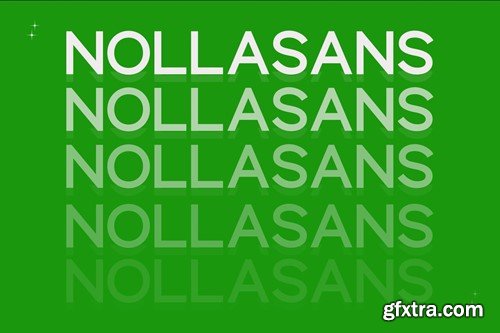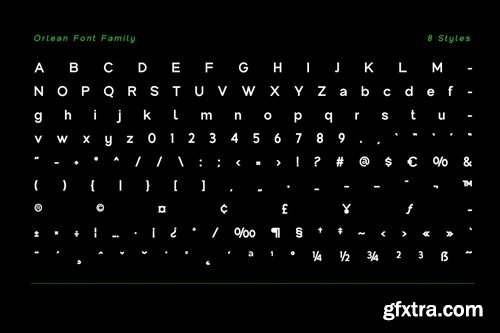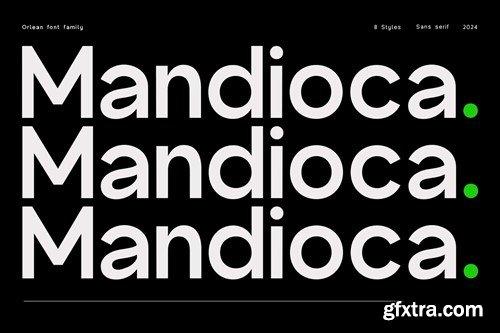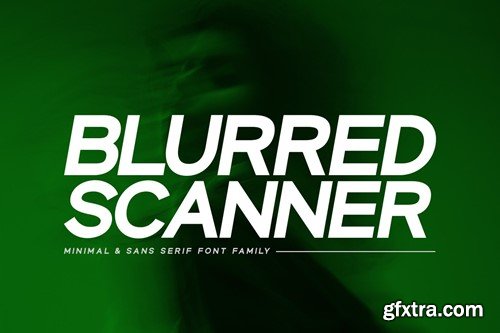
Orlean Grotesk Pro W9Q3DGX
- Orlean Grotesk is a Unique Modern Elegant Typeface with Web-fonts. This font works great in large and small sizes. The Orlean Grotesk font would be perfect for branding, logos, headlines, and captions & simply as a stylish text overlay to any background image. Strong capitals and a smooth, open lowercase are effective in a variety of applications. The various weights allow you to experiment with a wide range of applications. It's created to make an impression without sacrificing its beauty and readability.
- The Typeface includes 4 Weights - Regular, Medium, SemiBold, Bold & Italic Variants are Included.